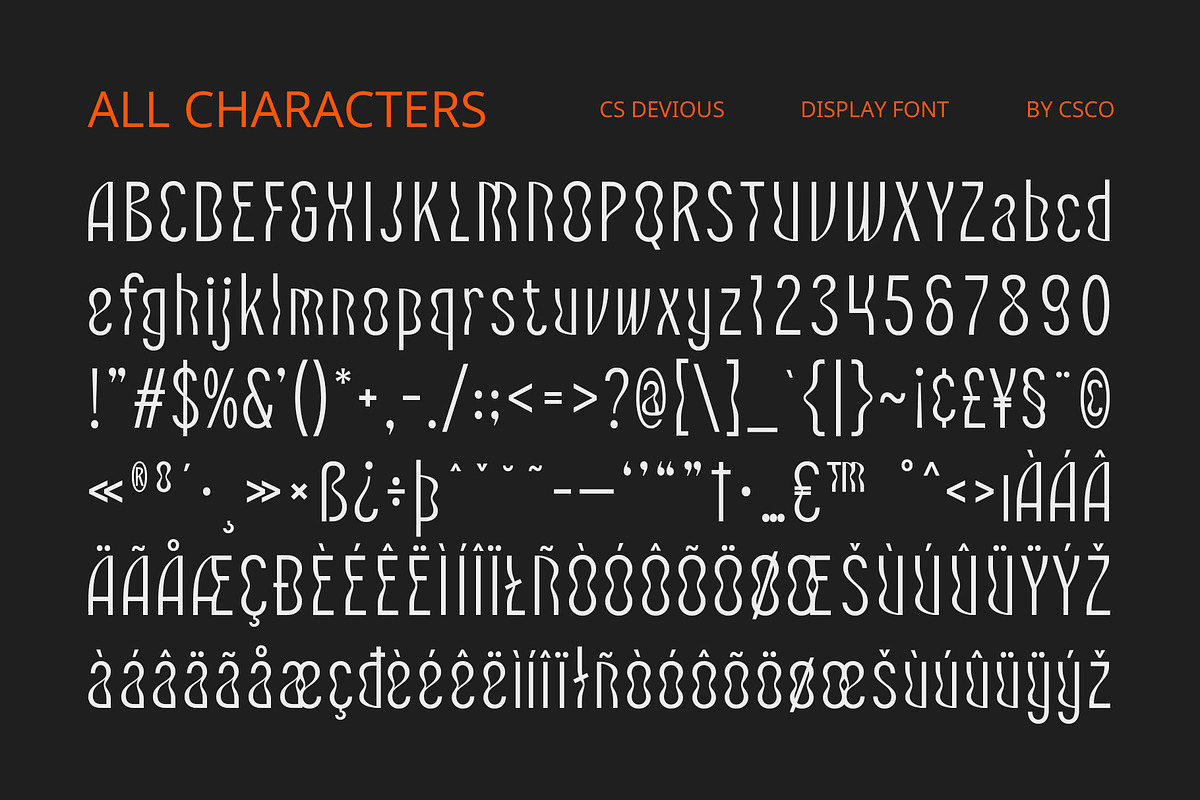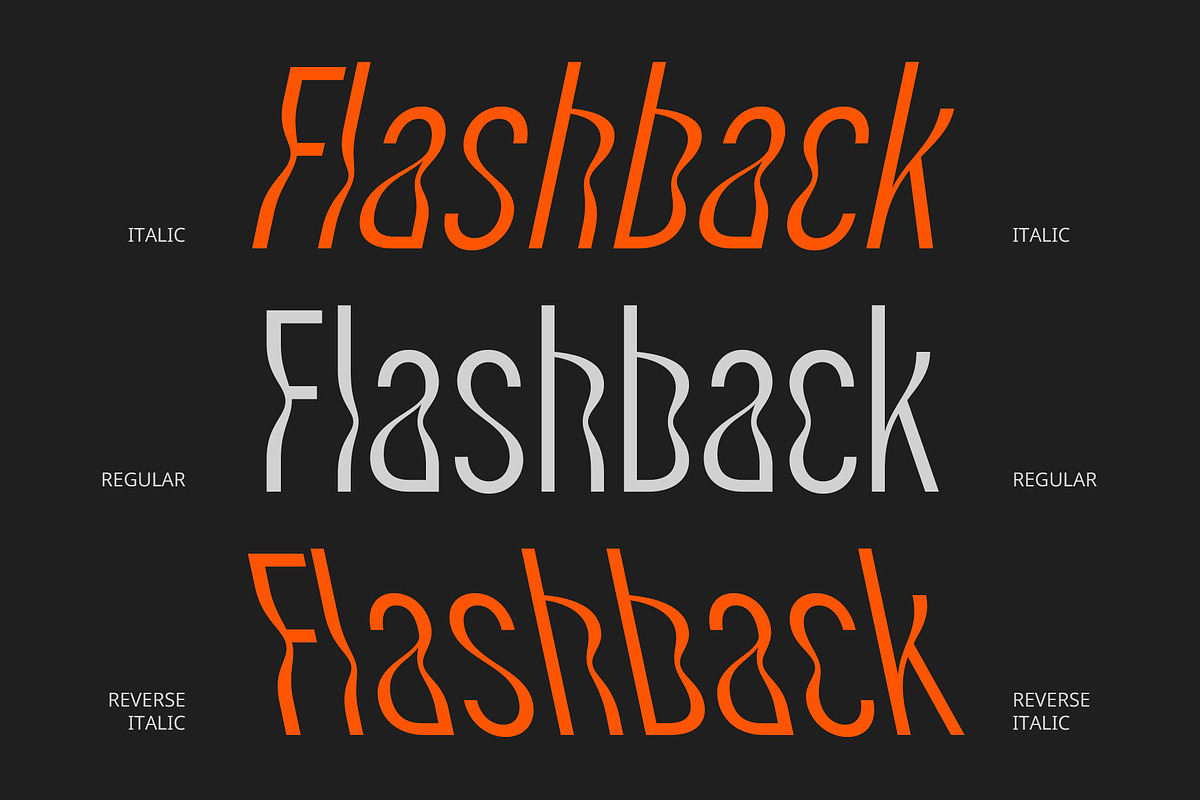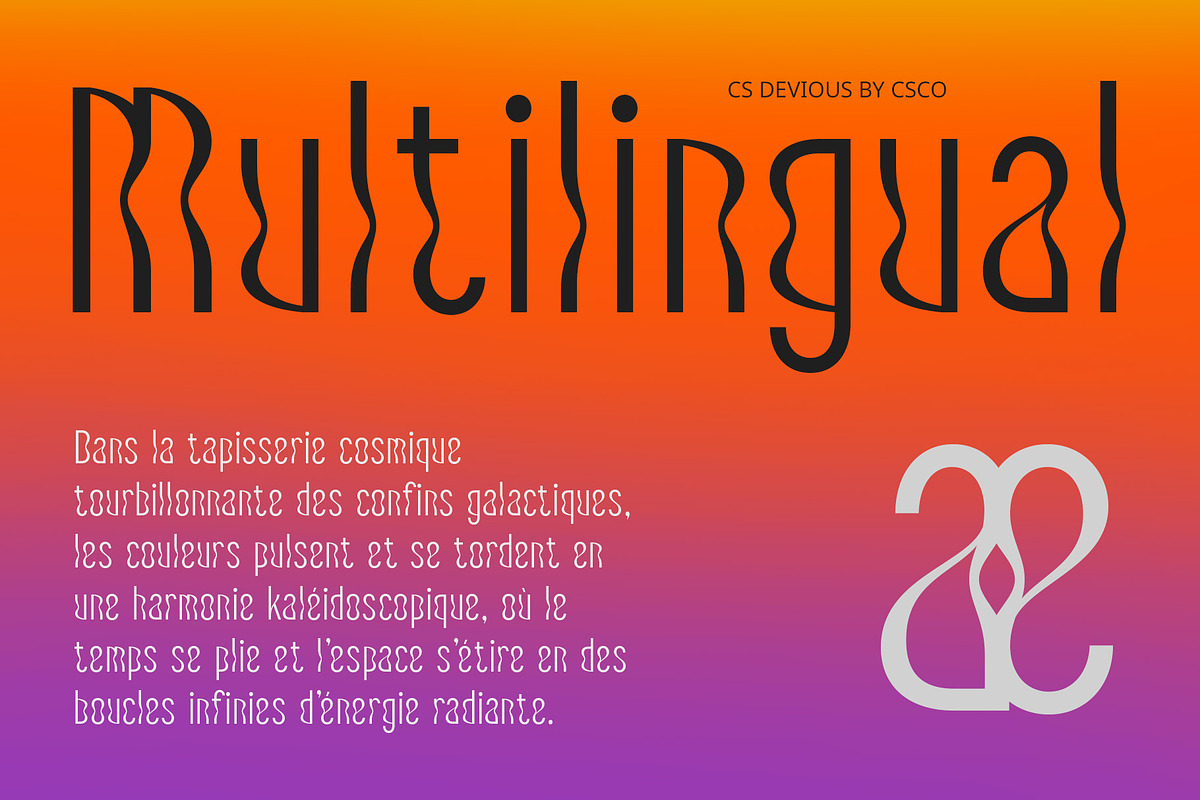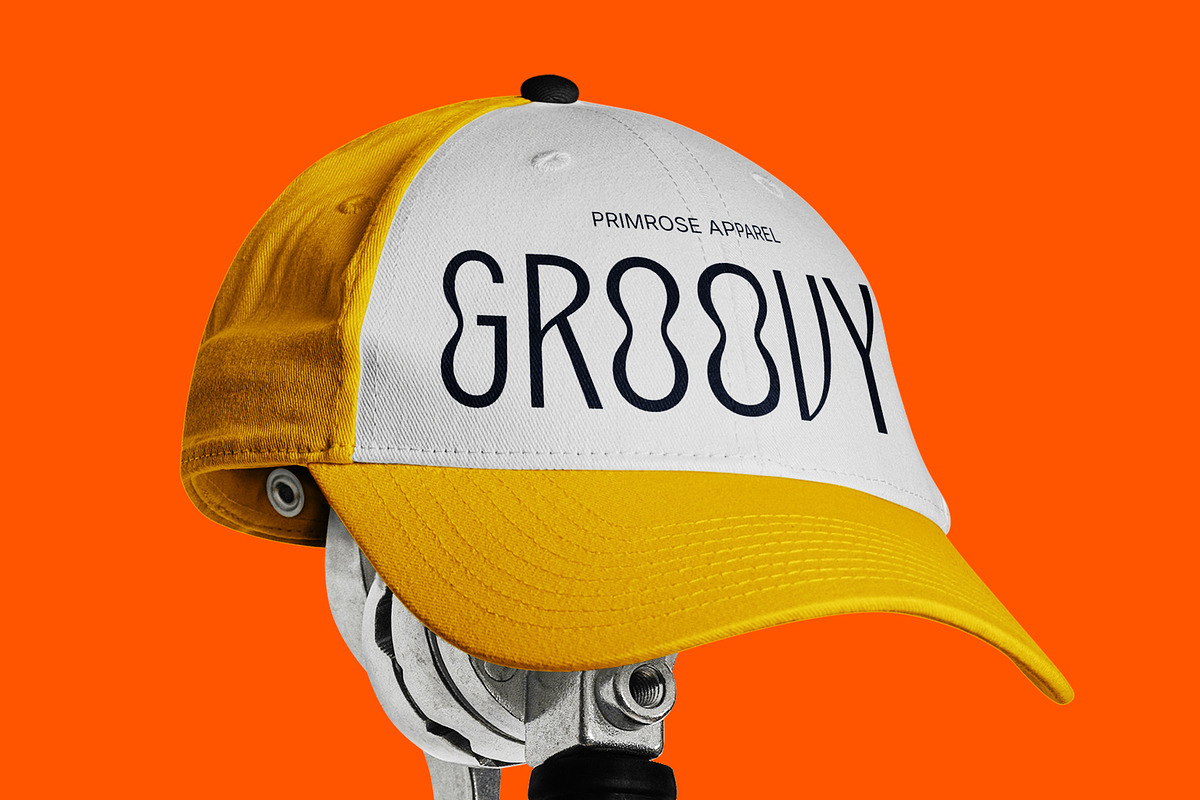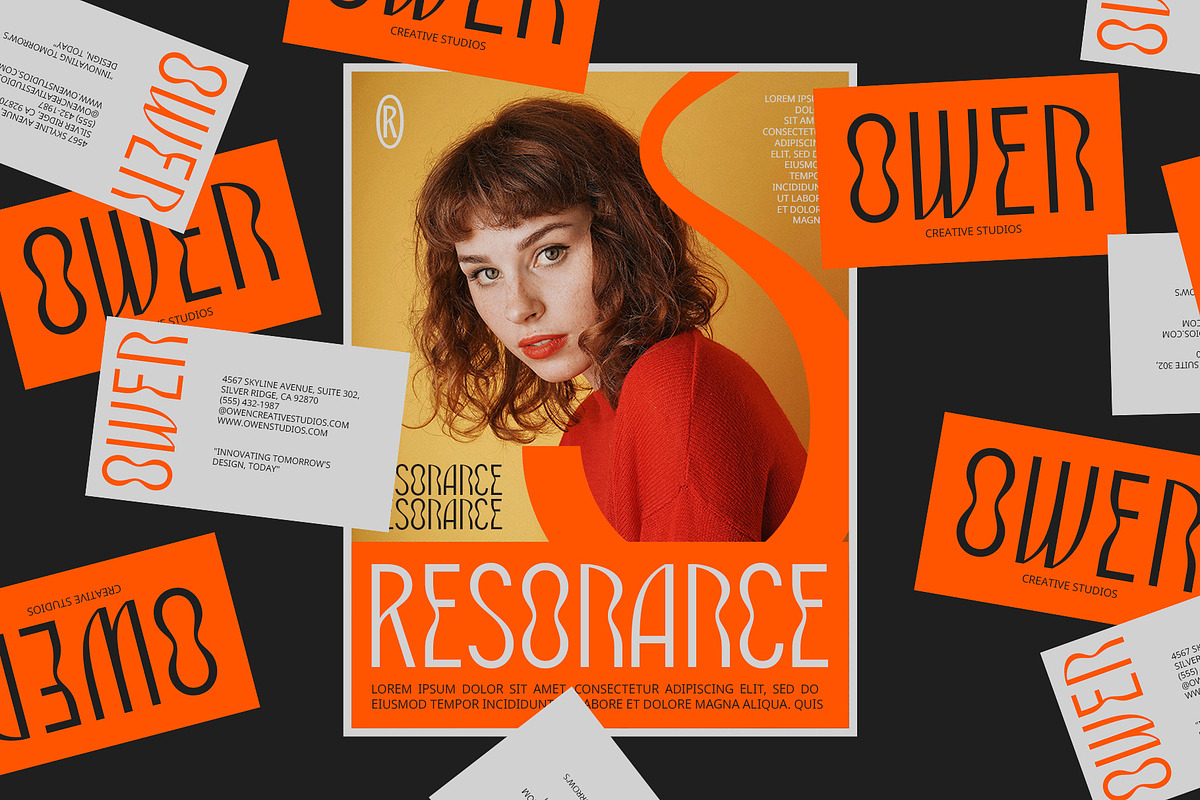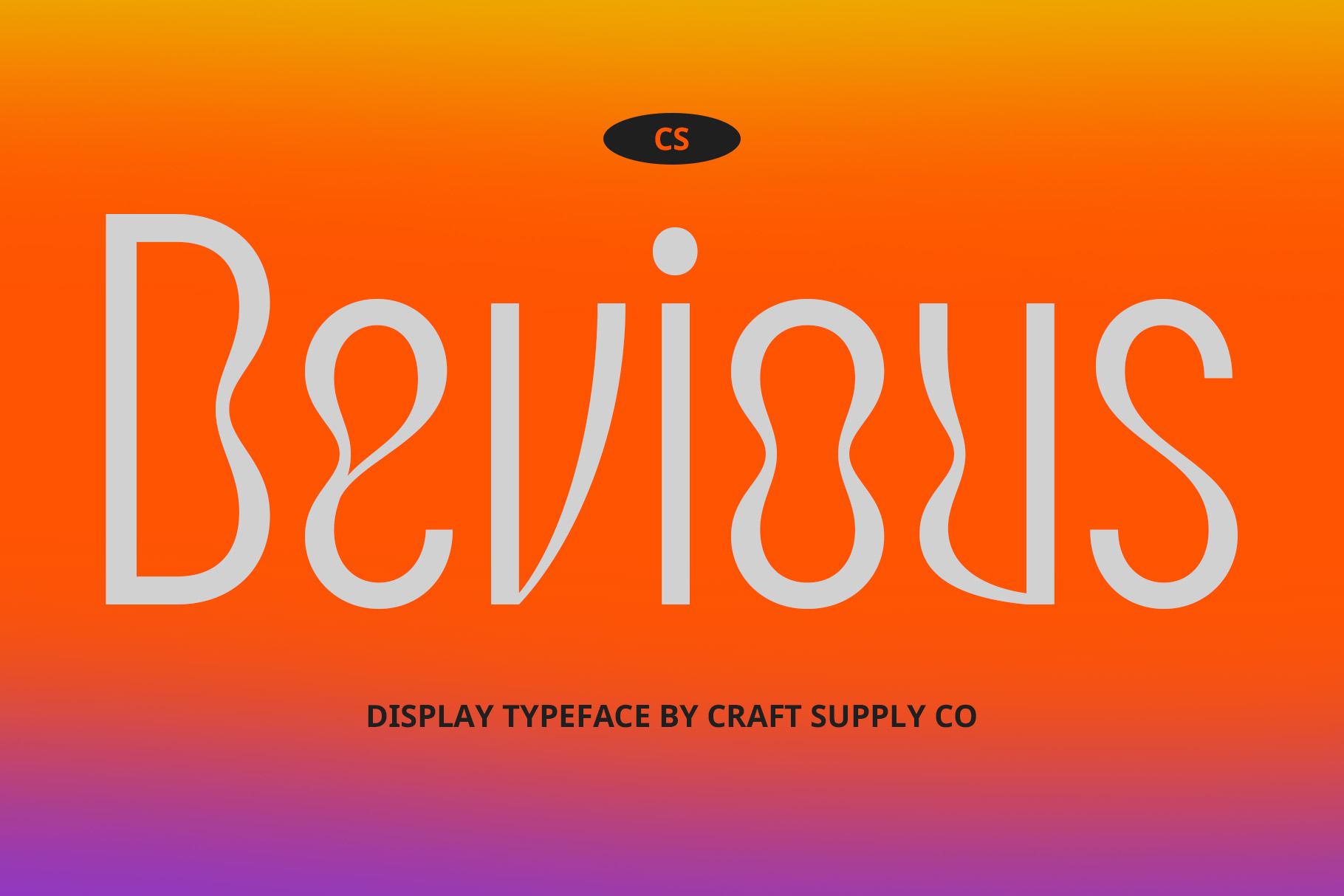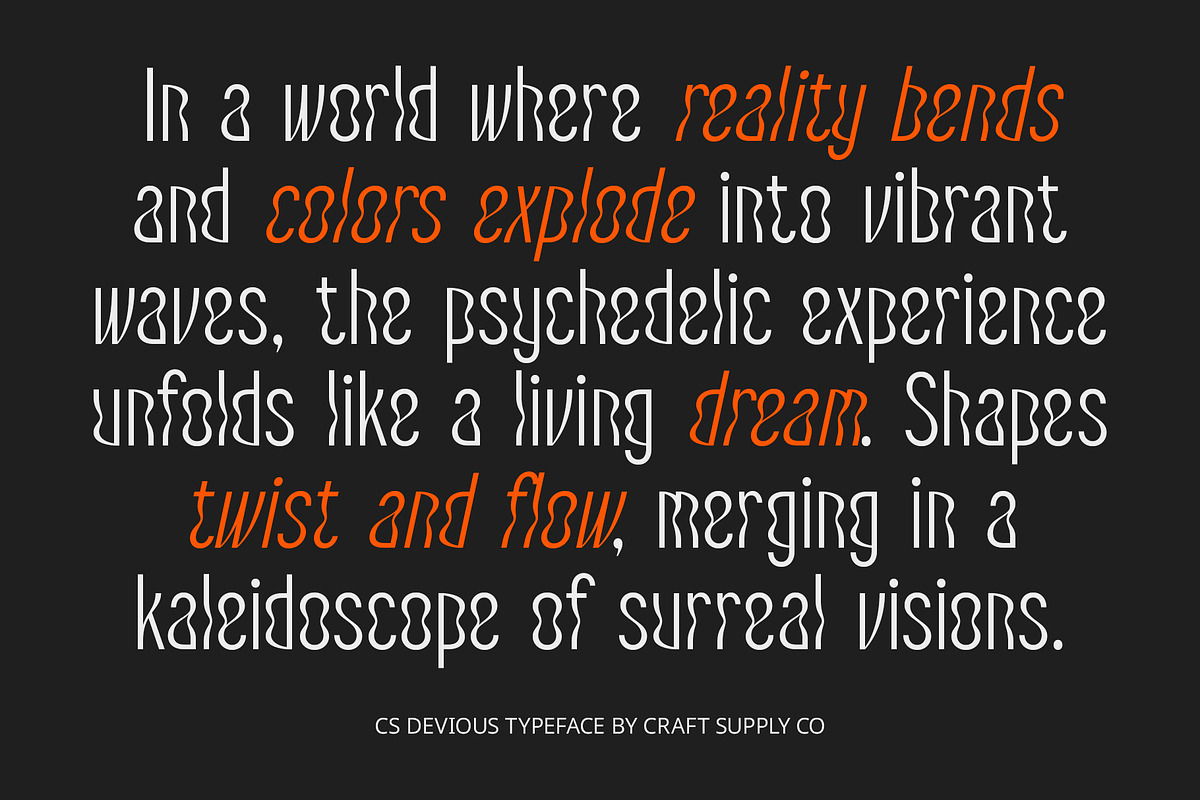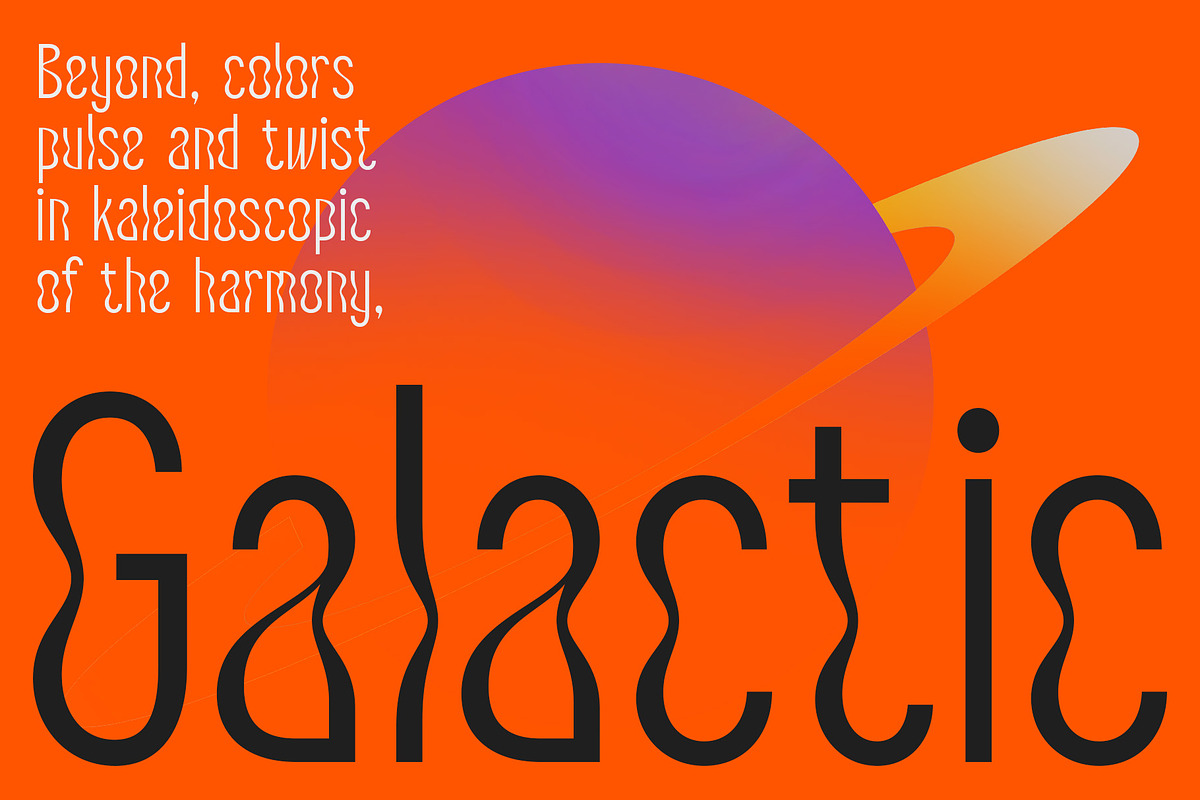
CS Devious – Psychedelic Font
CS Devious – Psychedelic Font: Ignite Your Imagination
Modern Psychedelic Display with Funky Flair CS Devious is a modern psychedelic display font that showcases an array of curved and distorted designs, crafting a funky and cheerful impression. Its unconventional characteristics culminate in a bold and eye-catching appearance, enhanced by dynamic visual elements that effortlessly capture attention and provoke curiosity.
Perfect for Creative Expression Ideal for projects that emphasize creativity and joy, CS Devious shines in a multitude of applications, including music event posters, product designs, and contemporary artwork. Its lively character not only makes it a standout choice for any design but also allows it to adapt seamlessly to various creative contexts, ensuring your message resonates with its intended audience.
A Vibrant Atmosphere of Fun With its bright colors and unique shapes, CS Devious creates a playful atmosphere that energizes any visual communication. Whether you’re promoting an exciting music festival, designing eye-catching merchandise, or crafting compelling artwork, this font adds a distinctive touch that elevates your message and enhances your brand identity. Its whimsical nature invites viewers to engage and explore, fostering a connection that lingers. Let CS Devious be your go-to font for projects that seek to evoke excitement and originality. The striking design ensures that your creations not only stand out but also resonate deeply with audiences.
- CS Devious Regular
- CS Devious Italic
- CS Devious Reverse Italic